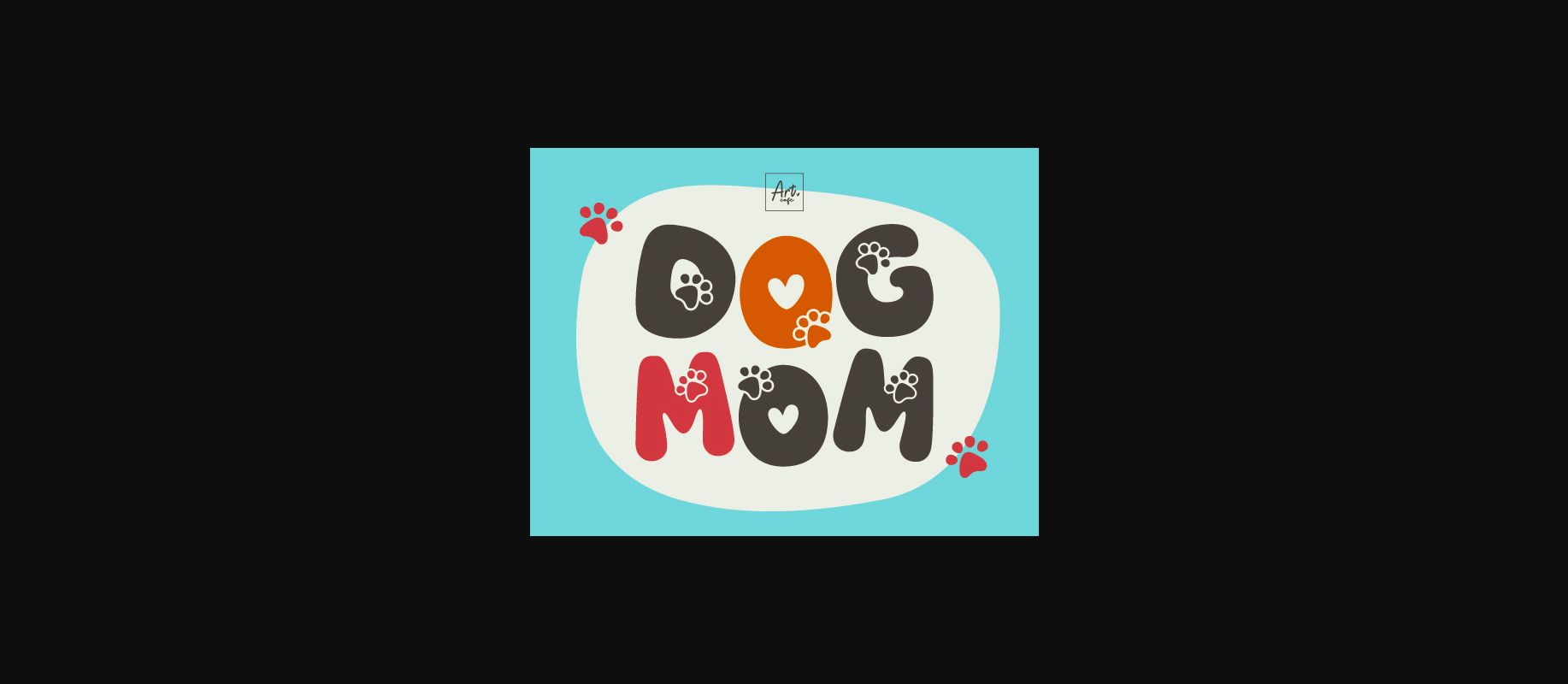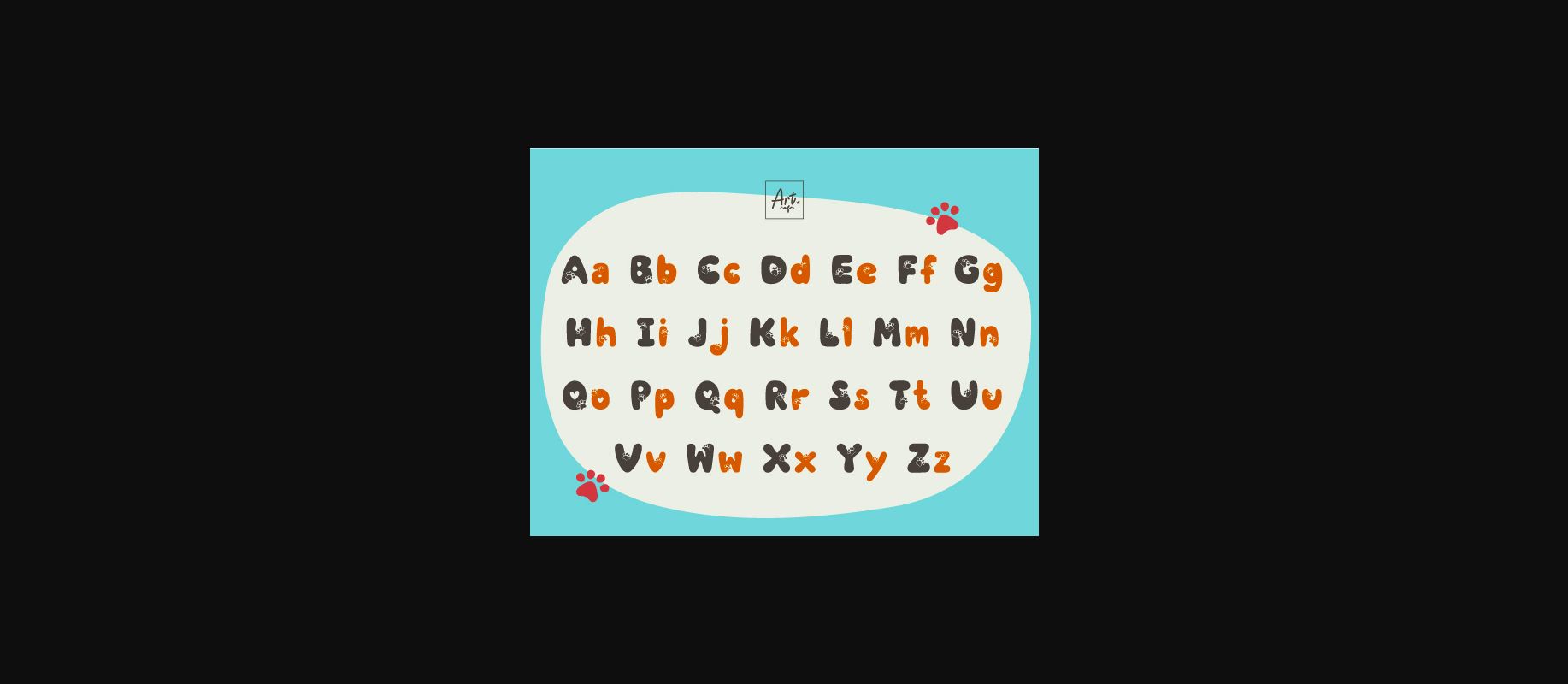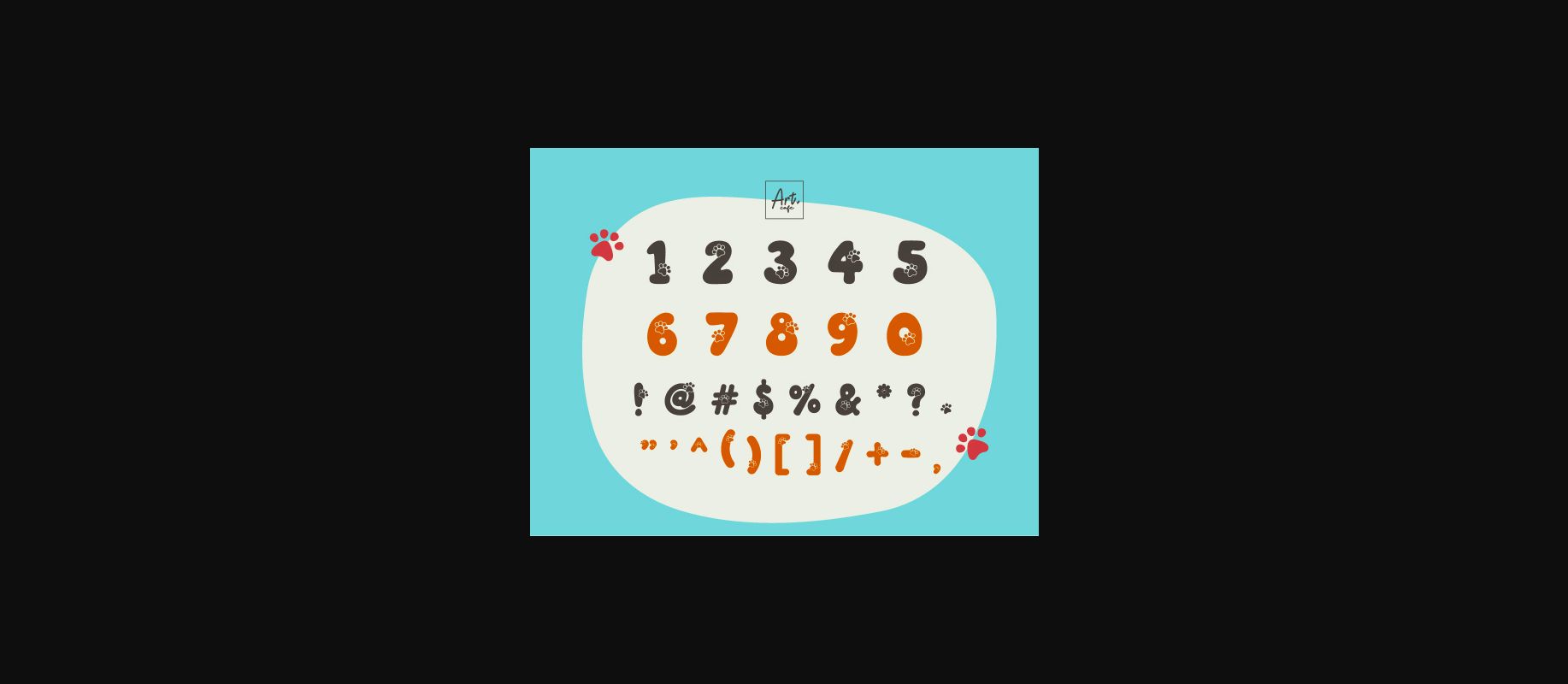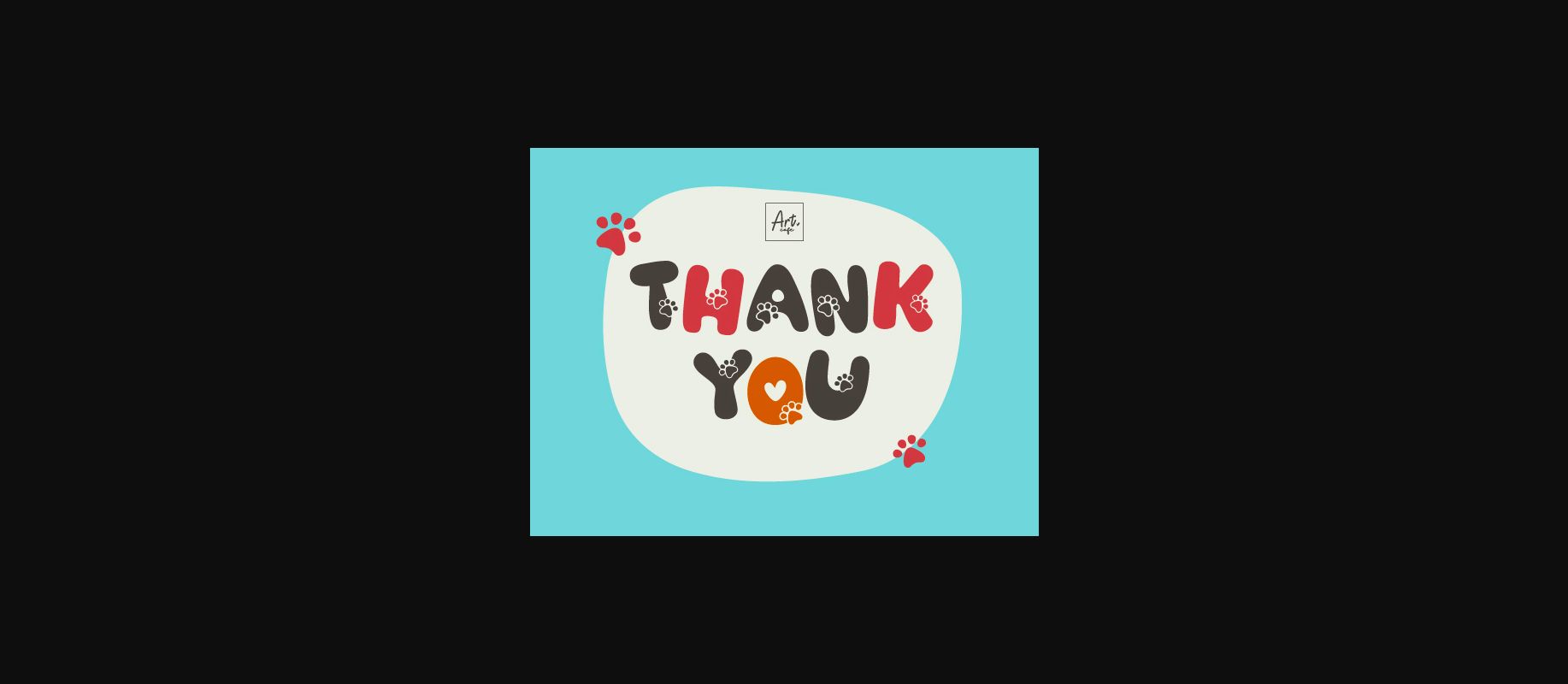
Dog Mom Font
About Dog Mom Font
Introducing Dog Mom font, a one-of-a-kind typographic design featuring charming pet paw embellishments. An absolute delight for dog and cat enthusiasts, this alphabetical ensemble effortlessly exudes a love for fur-babies. Apt for pet-centric projects, it subtly infuses a warm, lovable sentiment on every note it adorns. This quirky typeface resonates with the spirit of every dog mom and cat dad, appealing and delightful in its furry footprints. Dog Mom font is not just a typographical choice, it’s an expression of pet-packed passion.